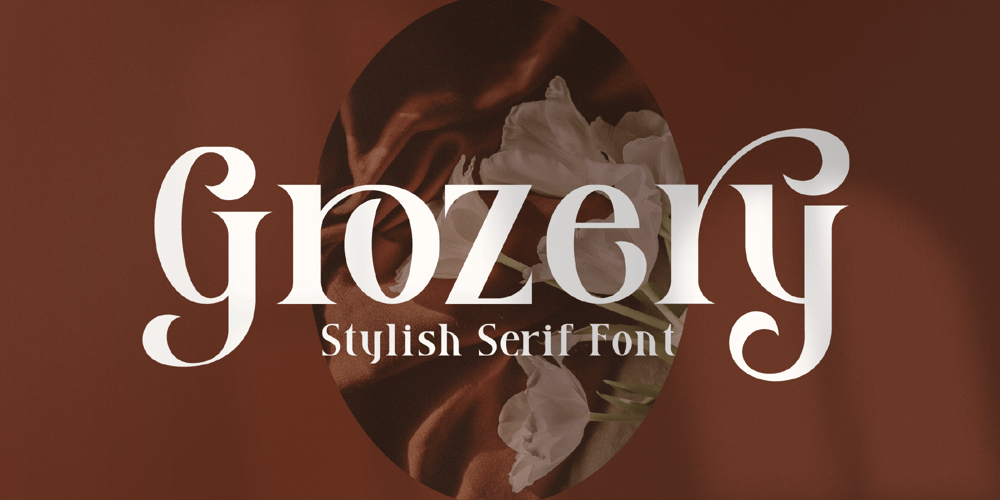
Grozery Font Family was designed by Heru Utama Putra and published by Letterena Studios. Grozery contains 2 styles and family package options. Grozery is a stylish and bold serif font. It is a modern and classic font that has its own unique style & modern look.This typeface is perfect for logos, books or movie title designs, fashion brands, magazine covers, clothes, lettering, quotes, and so much more. Grozery is PUA encoded which means you can access all of the glyphs and swashes with ease!